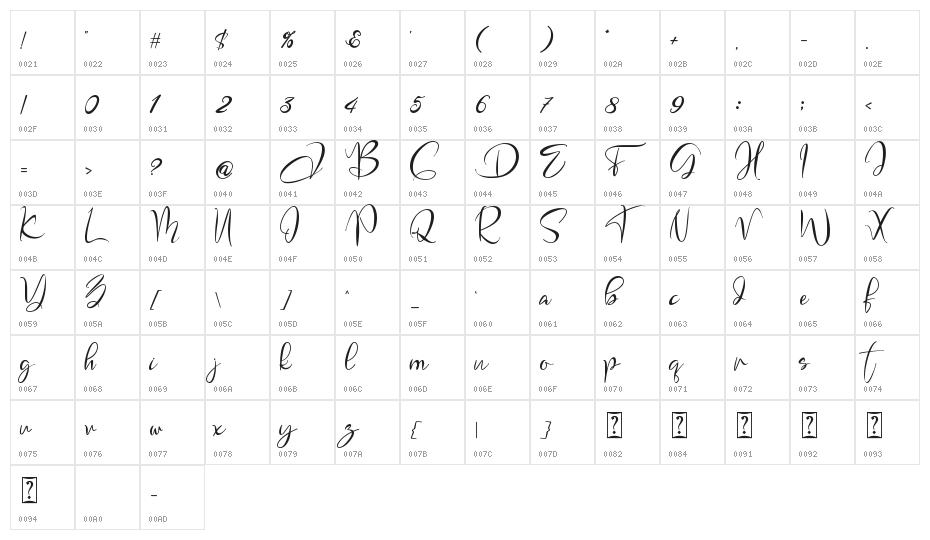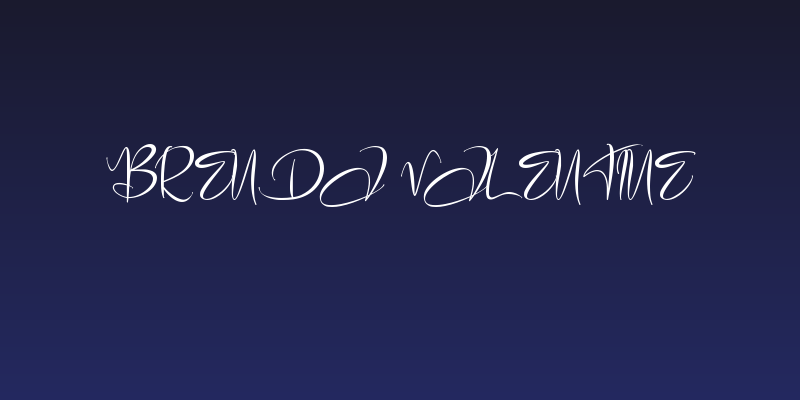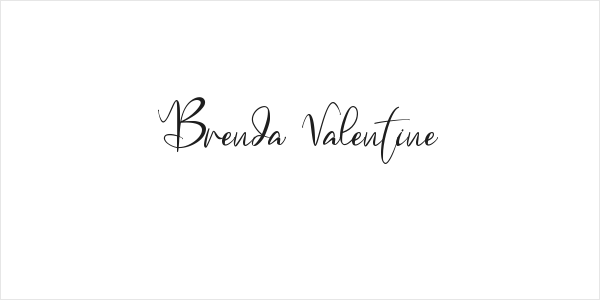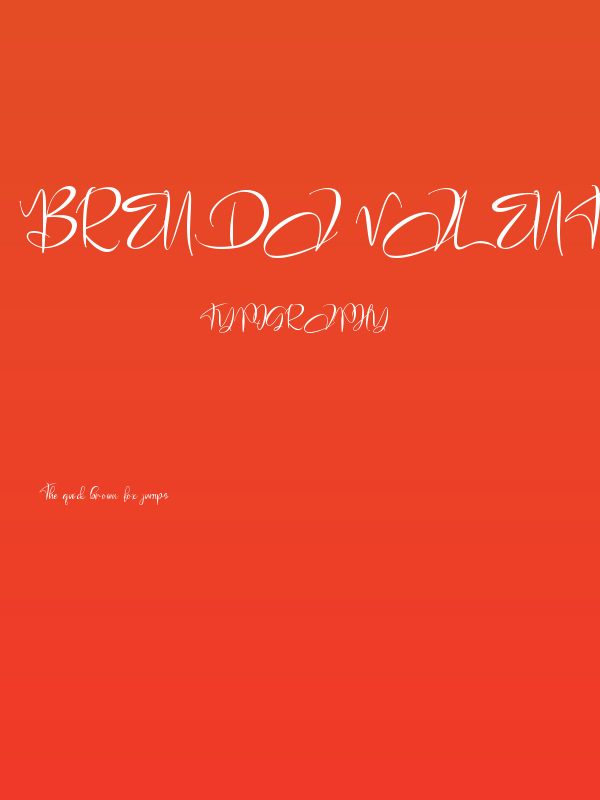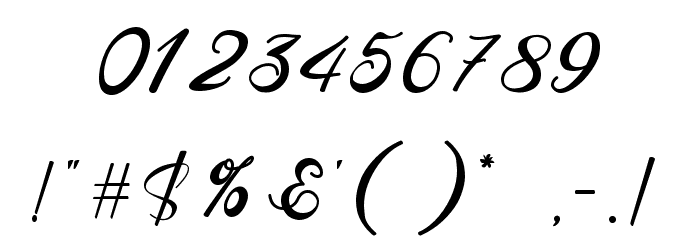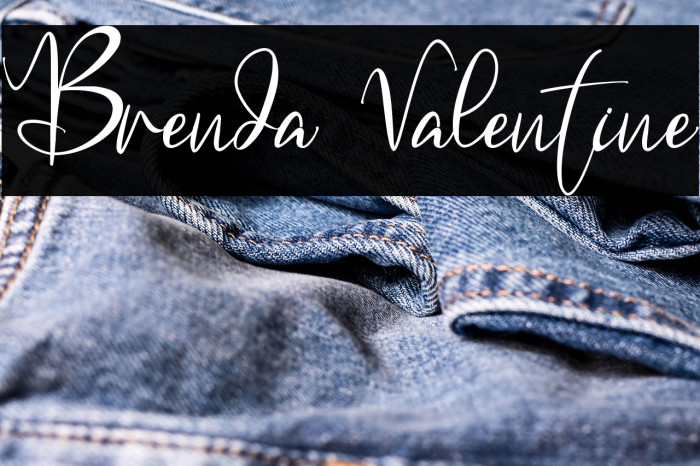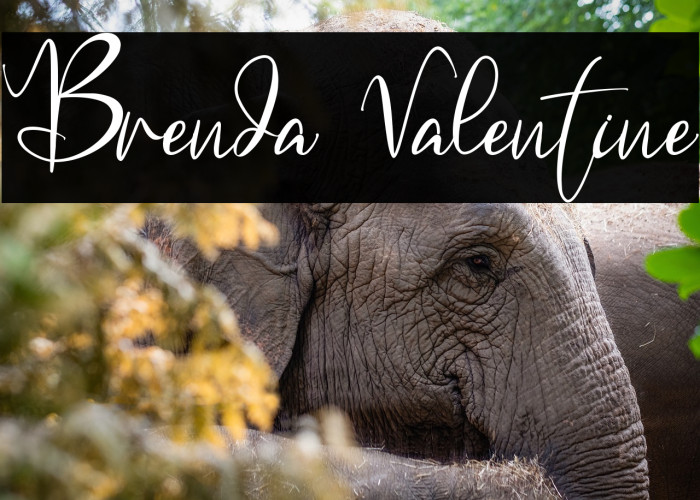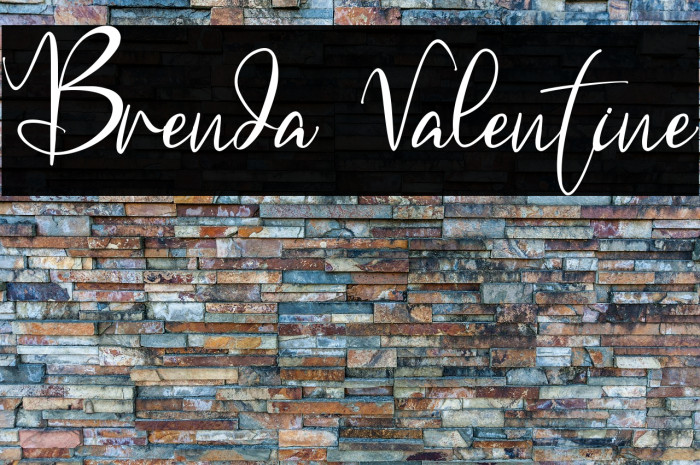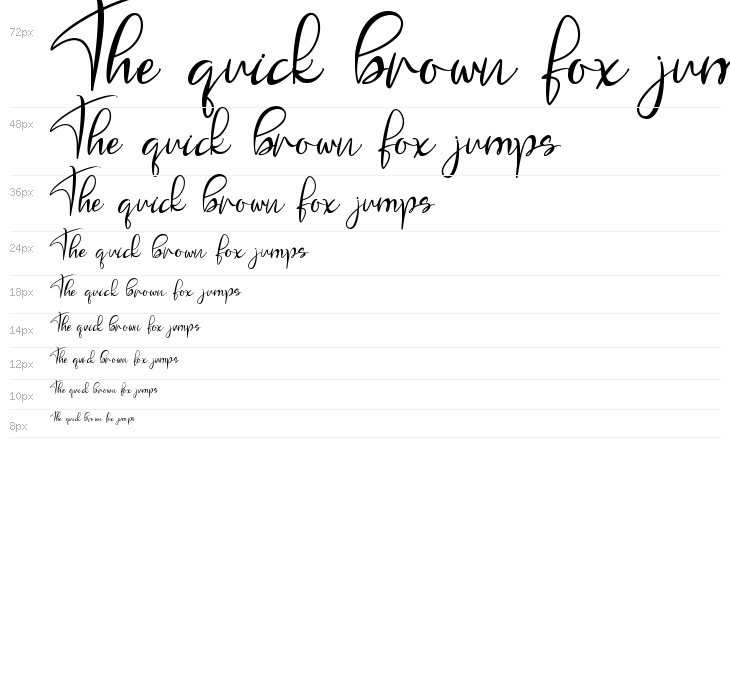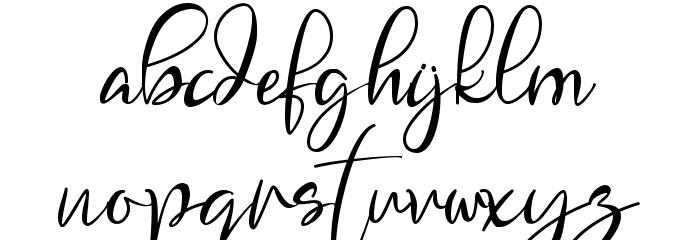
Brenda Valentine Font
Brenda Valentine Description
This font features a flowing, cursive style that exudes elegance and sophistication. The letters are interconnected with smooth, sweeping strokes that create a sense of fluidity and grace. The uppercase characters are particularly ornate, with elaborate loops and flourishes that add a decorative touch. The lowercase letters maintain a consistent style, with gentle curves and a slightly slanted orientation. The numerals and special characters are designed to complement the overall aesthetic, maintaining the same graceful lines and artistic flair. This font is perfect for projects that require a touch of elegance and artistic expression.
| Overall Style | Elegant, Artistic |
| Use Case | Headlines, Invitations, Artistic projects |
| Proposed Projects | Ideal for wedding invitations, elegant branding, greeting cards, and artistic projects. |